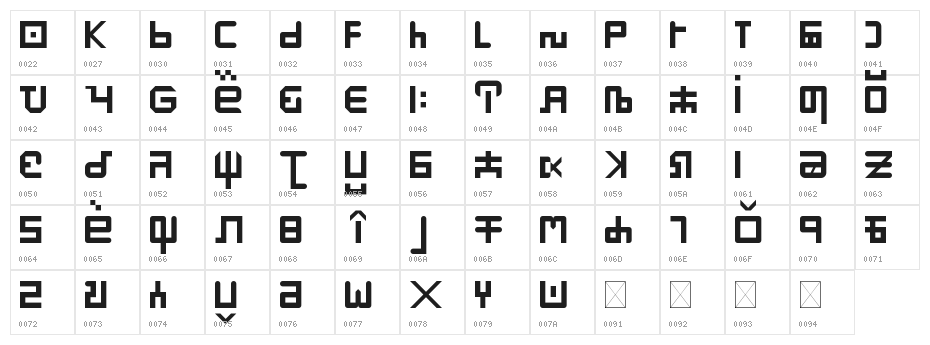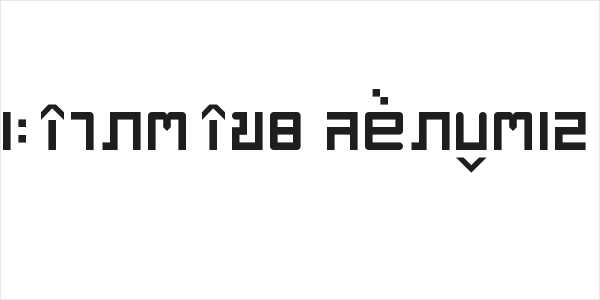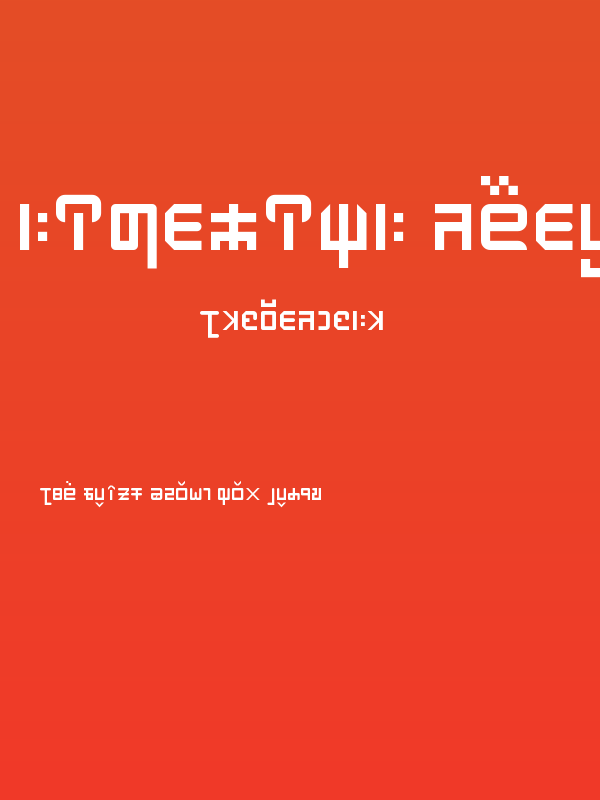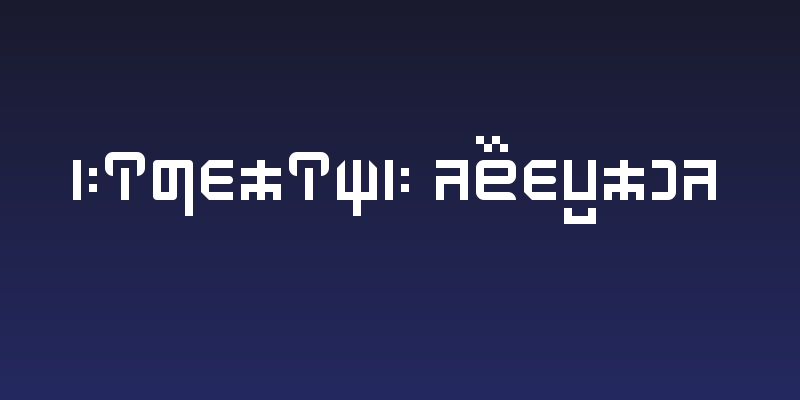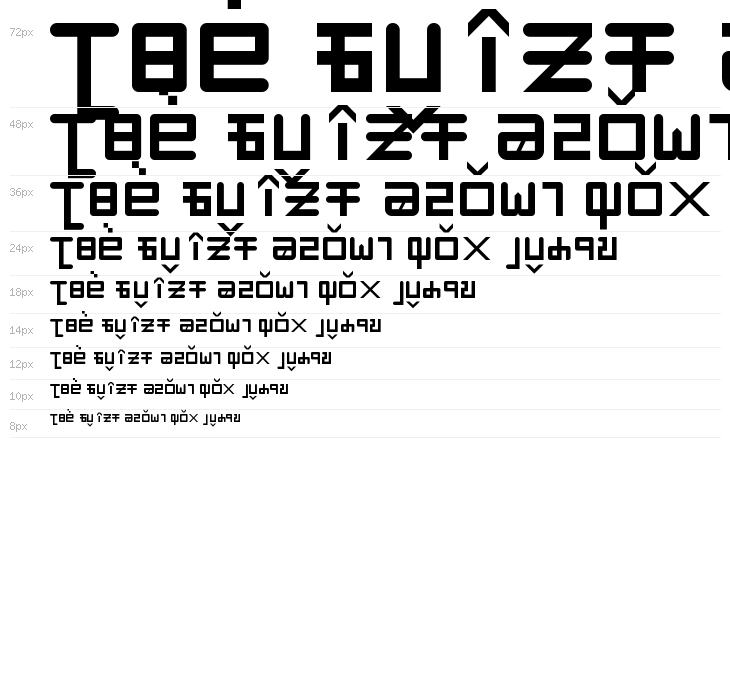
Hinglish Regular Font
Hinglish Regular Description
This font features a bold, geometric style with a modern twist. The characters are constructed with straight lines and sharp angles, giving it a futuristic and digital appearance. The uppercase and lowercase letters maintain a consistent height, contributing to a uniform look. The numbers and special characters are designed to match the angular theme, ensuring a cohesive visual experience. This font's unique style makes it stand out, ideal for projects that require a contemporary and edgy aesthetic.
| Proposed Projects | Ideal for tech-related branding, digital art, video game interfaces, and futuristic posters. |